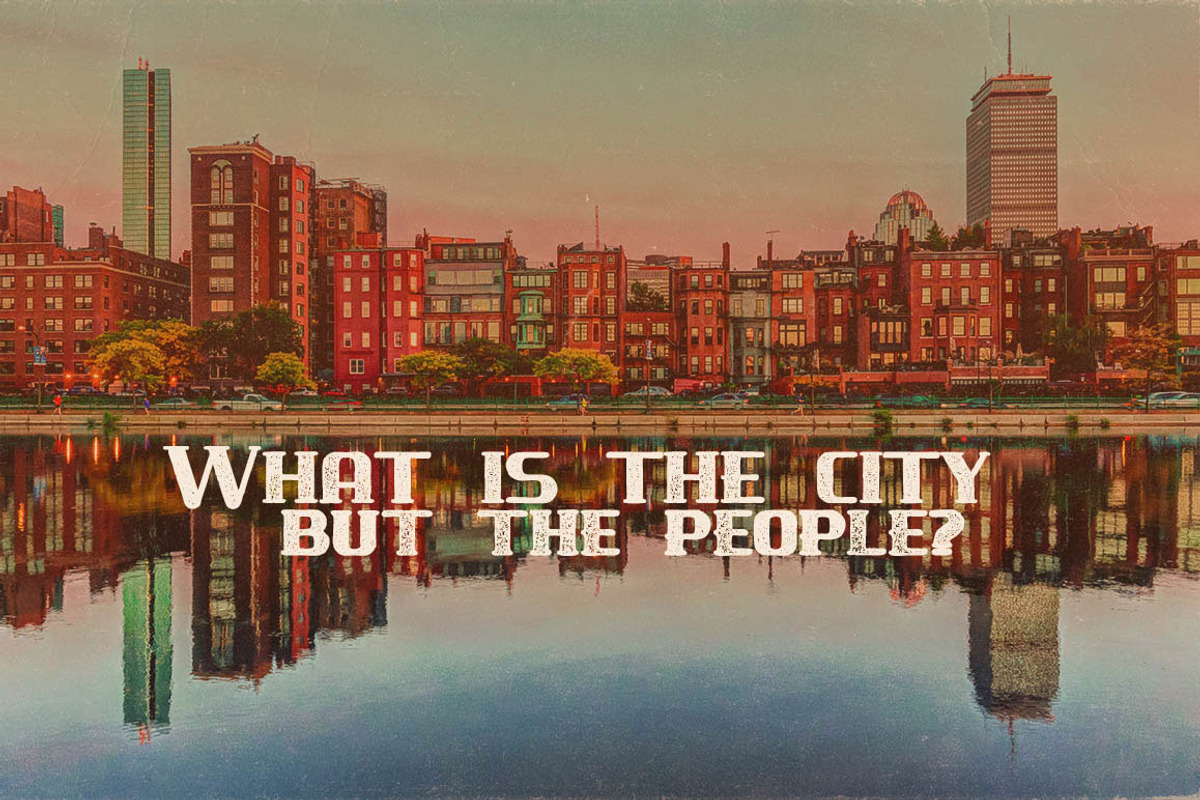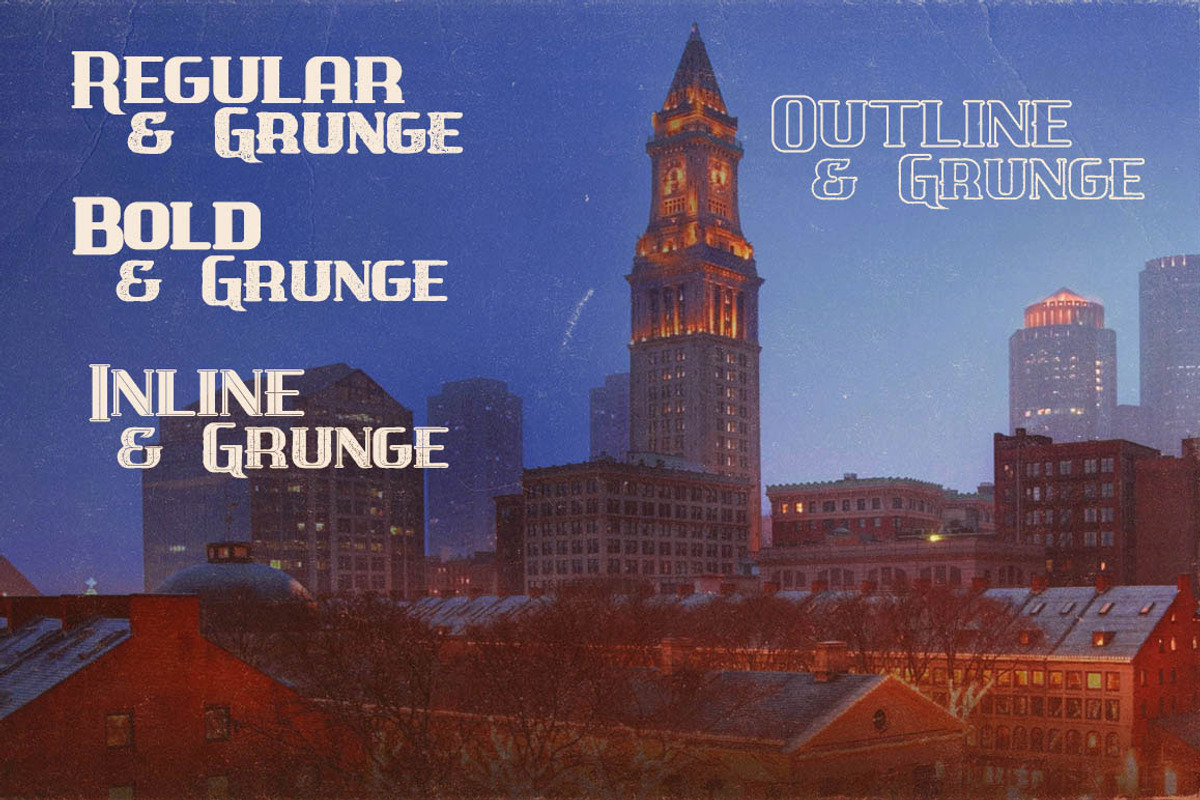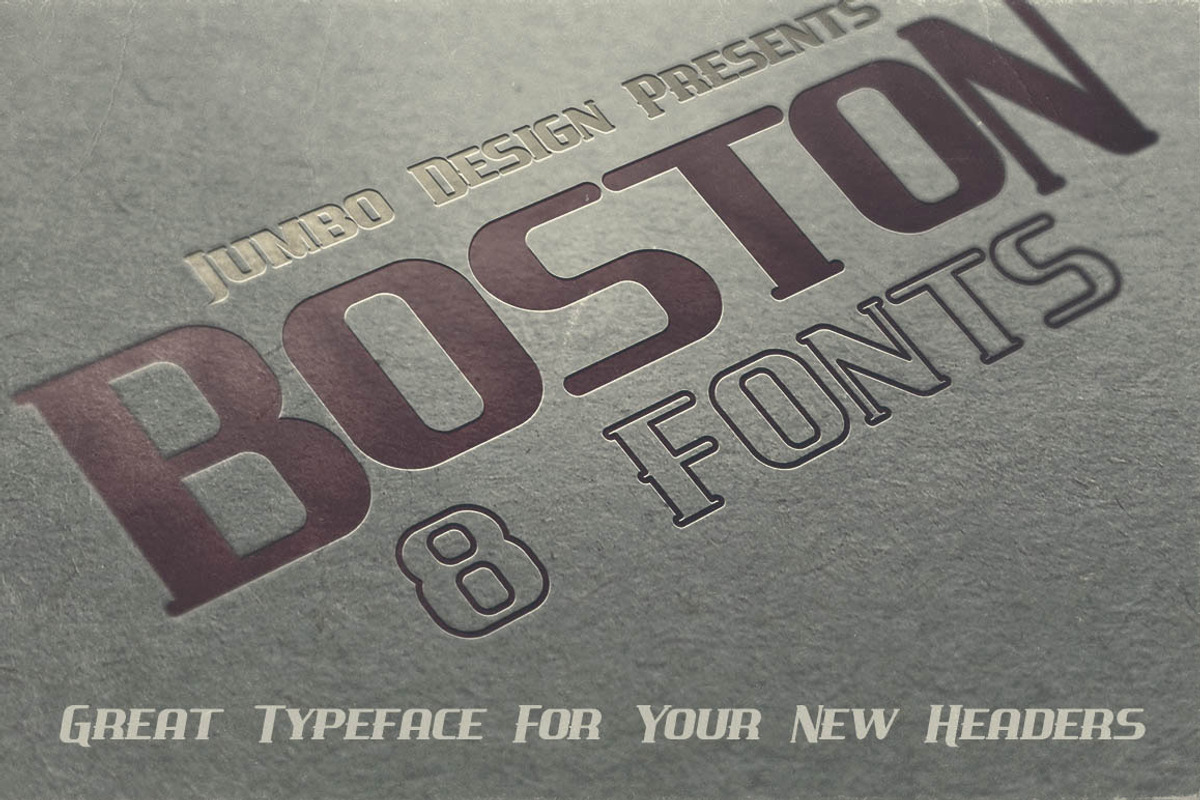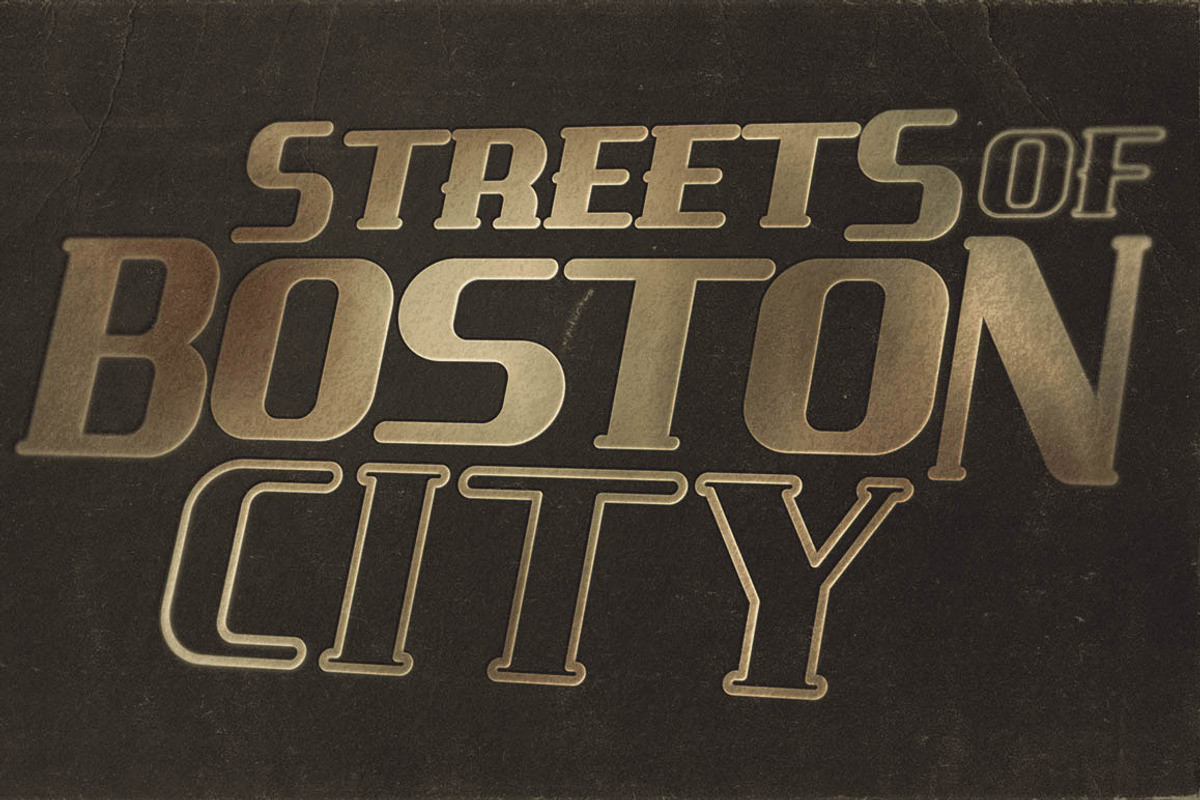
Boston - Vintage Style Font
Boston - Vintage Style Font by JumboDesign is a font selected for branding, posters, packaging, typography.
Why Boston - Vintage Style Font is worth a look
Boston - Vintage Style Font by JumboDesign fits naturally into Branding, posters, packaging, typography.